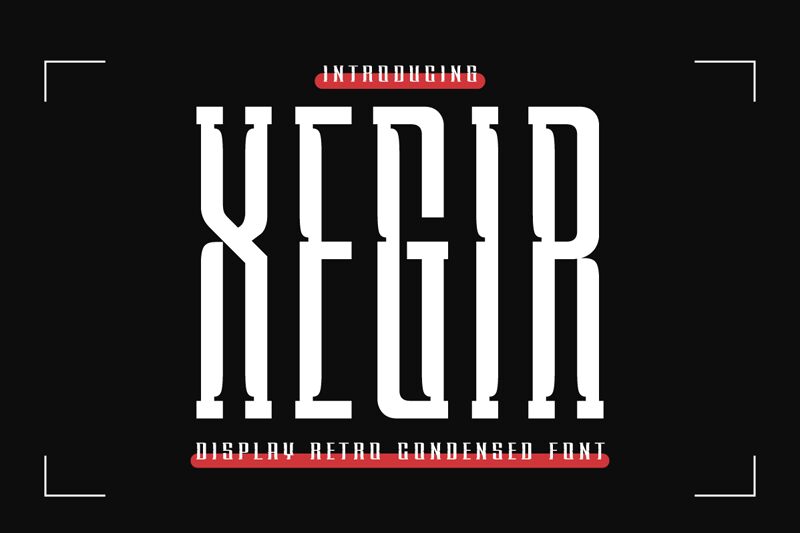
XEGIR Sans
Xegir Sans, a captivating display font designed by Twinletter, exudes a striking and unconventional elegance. With its condensed width and bold, dramatic strokes, this font commands attention, evoking a sense of power and modernity. The precise, geometric forms and sharp, angular serifs create a visually compelling and visually striking aesthetic, making Xegir Sans an ideal choice for projects seeking a strong, impactful typographic presence.
Xegir Sans' versatility extends beyond its visual appeal, as its condensed nature lends itself exceptionally well to a variety of design applications. From eye-catching headlines and logo designs to captivating editorial layouts and branding collateral, this font possesses the flexibility to seamlessly integrate into diverse creative projects, effortlessly commanding attention and leaving a lasting impression on the viewer.